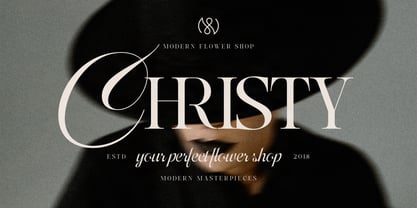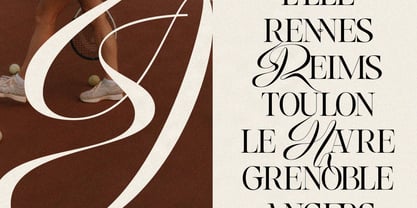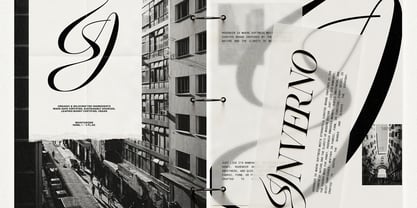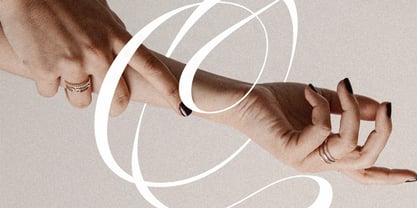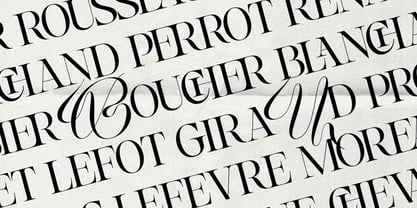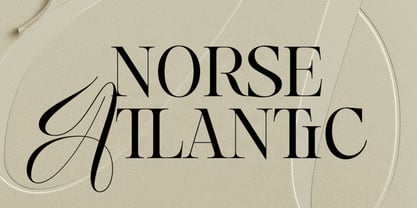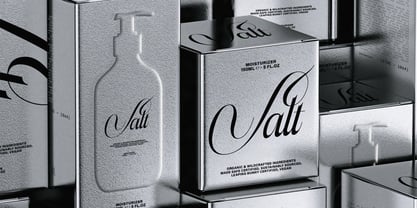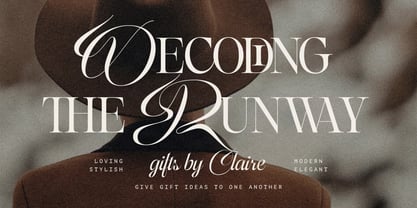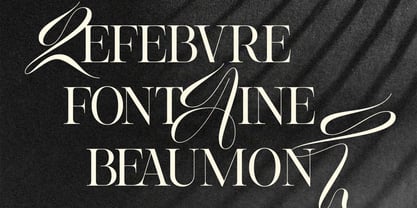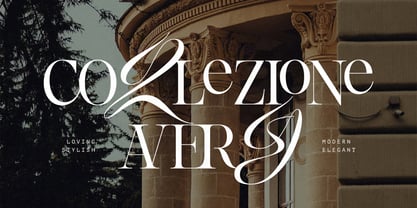
SLTF Hazel Shore
SLTF Hazel Shore is a font duo. A high contrast display serif with a matching true italic, and a flowing script drawn to sit inside it.
Set a word in the serif, swap one letter for its script counterpart, and the whole thing changes character. LONDON with a script L. CHRISTY with a script C. It works because both faces share the same x-height, cap height and proportions, drawn together rather than paired afterwards.
Built for fashion and beauty branding, packaging, labels, editorial covers, stationery and logos.